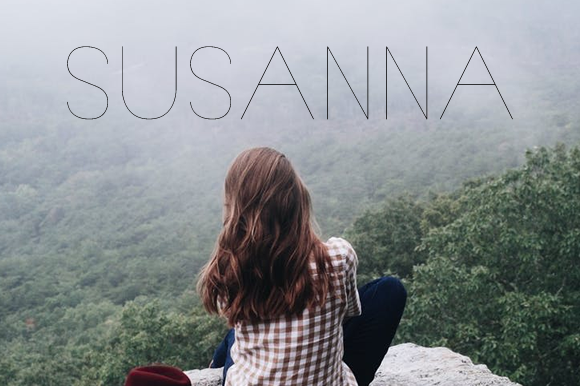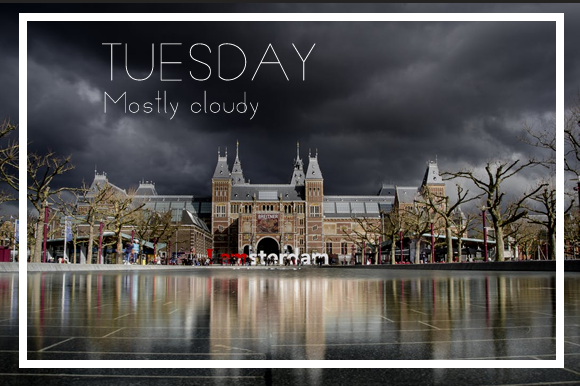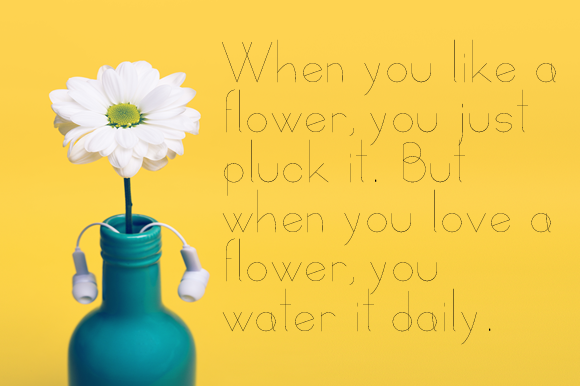
HomePersonal Use FreeSusanna Personal Use Free Susanna FacebookXPinterestWhatsApp 1 of 3 About Susanna Font Susanna is a thin, hairline sans serif created by MatchbookPress. DOWNLOAD ON CREATIVE FABRICAThis font is sold and delivered by Creative Fabrica. Font Canyon may earn a commission if you buy through this link. People also explored Monthlight Font Kramfors Font Holymast Font Sahitna Font Freeze Frozen Font Qauthor Font Magic Clause Font Smoothie Font Dabora Font 593 0 TagsSusanna FontSusannah Font Previous articleRound GeometricNext articleCosmos LEAVE A REPLY Cancel reply Comment: Please enter your comment! Name:* Please enter your name here Email:* You have entered an incorrect email address! Please enter your email address here Website: Save my name, email, and website in this browser for the next time I comment. Personal Use Free JVNE Smoothdron Personal Use Free Read more about this font Zephan Personal Use Free Read more about this font Avagan Personal Use Free Read more about this font Americana Personal Use Free Read more about this font BLOG The 10 Best Handwriting Fonts to Add Personality to Your Designs 10 of the Best Handwriting Fonts for Adding Personality to Your Designs There will undoubtedly be no other better choice than handwriting fonts to give... Best Fonts for YouTube Videos: Make Your Thumbnails Stand Out How to Install and Use Fonts on Windows, macOS, and Web Projects How to Cut Any Font on Cricut: Convert a Font to SVG (Free)